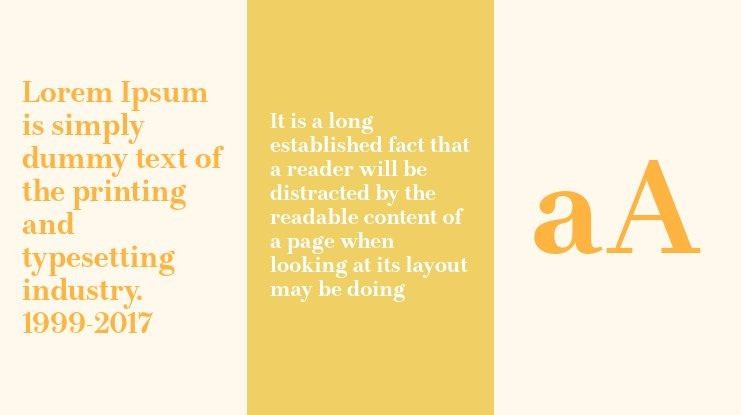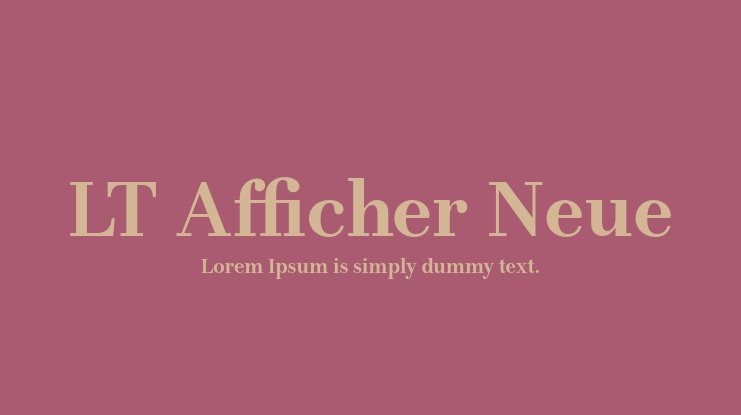
LT Afficher Neue Serif Font, This font was created for all forms of business and branding such as clothing, logos, skate boards and others according to your needs.
LT Afficher Neue Font
| Classification: | Serif Fonts, Style / Aesthetic Fonts |